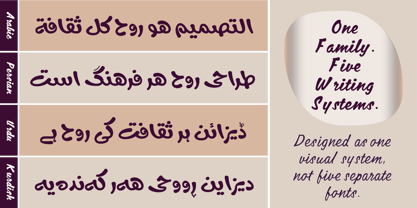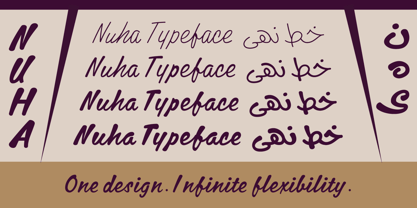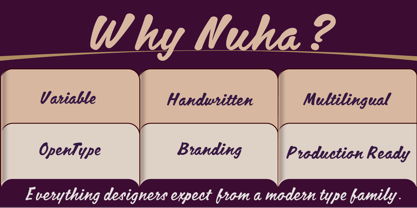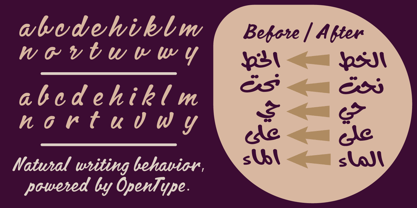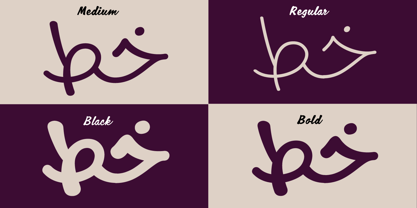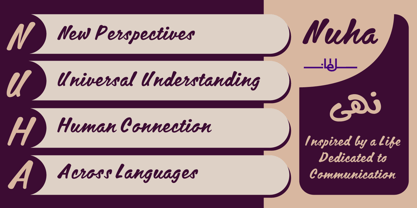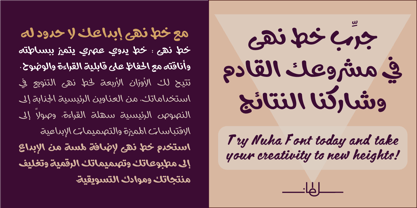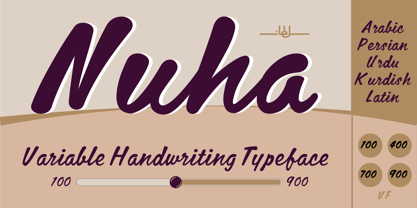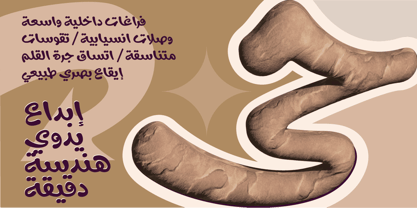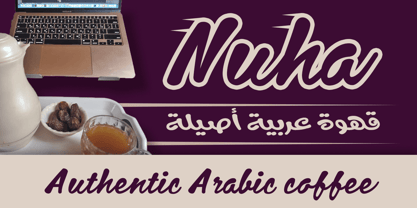
SF Nuha
Nuha is a contemporary multilingual handwritten type family combining the warmth of natural handwriting with professional type engineering. Supporting Arabic, Persian, Urdu, Kurdish, and Latin, Nuha offers four static weights from Thin to Black alongside a Variable Font spanning 100–900. Fluid connections, open counters, contextual behavior, and OpenType features preserve its expressive handwritten character across the entire family. Designed for branding, packaging, editorial, social media, advertising, invitations, and digital applications, Nuha brings a warm and dynamic human touch to contemporary multilingual typography.